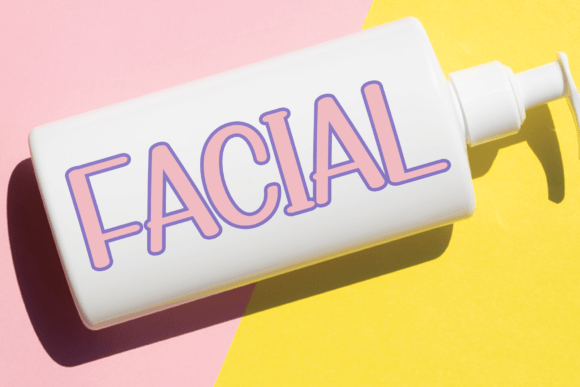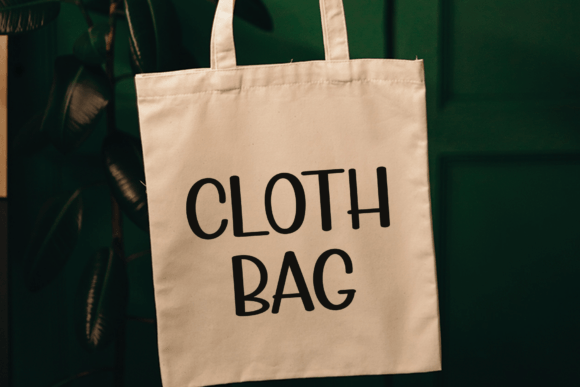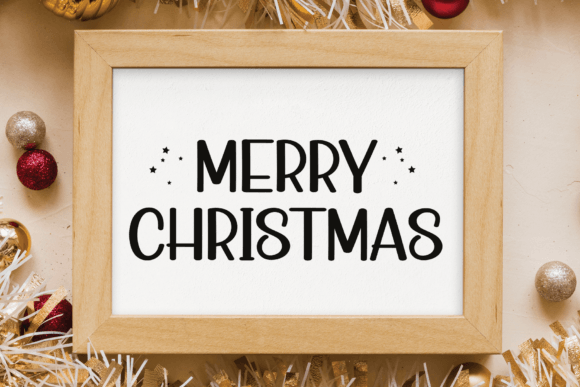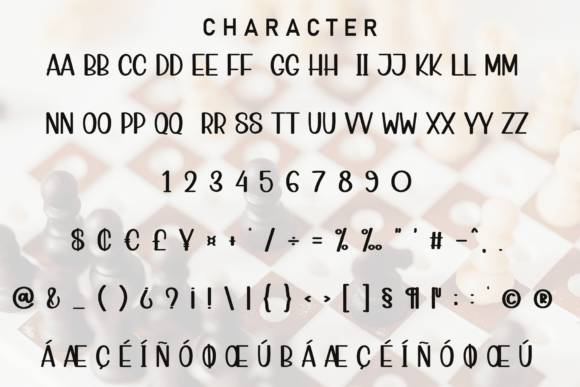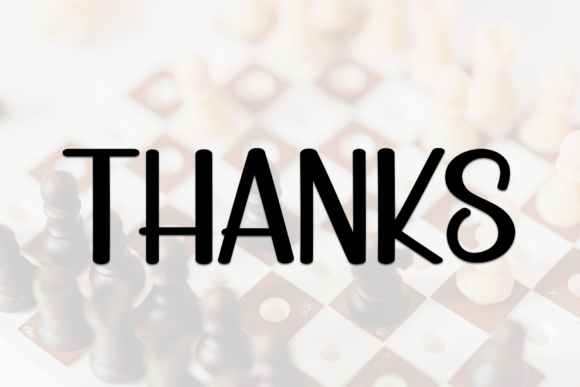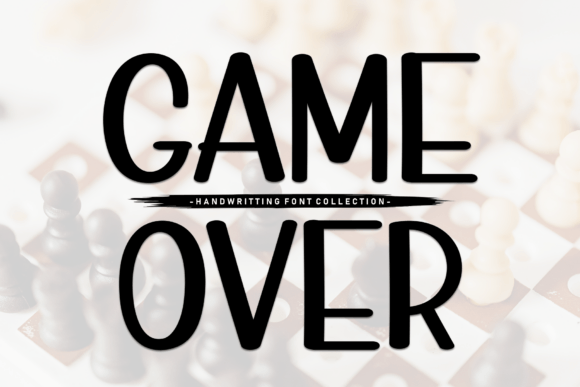
Introducing Game Over Font: Adding a Playful Touch to Your Designs
Are you tired of using the same old fonts in your designs? Look no further than the Game Over font, a playful, handwritten font that is sure to add a fun and energetic feel to your text. With its bold, marker-like strokes, Game Over is perfect for designers and crafters looking to make their text stand out.
The Characteristics of Game Over Font
Game Over is a casual, sporty font that looks like it was drawn with a bold marker. Its handwritten style gives it a friendly, approachable feel that is perfect for a variety of design projects. The font’s bold strokes and playful lettering make it ideal for headlines, titles, and other text that needs to grab attention.
What Makes Game Over Font So Versatile?
One of the things that sets Game Over apart from other fonts is its versatility. It can be used in a wide range of design projects, from sports-themed designs to playful crafts. Whether you’re creating a logo, a poster, or a social media graphic, Game Over is a great choice. Its casual, sporty vibe makes it perfect for designs that need to convey a sense of fun and energy.
Game Over font is a great choice for designers and crafters who want to add a playful touch to their work. Its bold, marker-like strokes make it perfect for a variety of projects, including:
- Signs and posters
- Craft projects, such as scrapbooking and card making
- Party decorations and invitations
How to Use Game Over Font in Your Designs
Using Game Over font in your designs is easy. Here are a few tips to get you started:
- Use it as a headline font to grab attention
- Pair it with a simpler font for body text
- Use it to create fun and playful graphics, such as badges and icons
Why Choose Game Over Font?
There are many fonts to choose from, but Game Over is a great choice for designers and crafters who want to add a playful touch to their work. Here are a few reasons why:
- It’s fun and energetic
- It’s versatile and can be used in a wide range of projects
- It’s easy to read and understand
- It’s perfect for designs that need to convey a sense of playfulness and fun
Game Over font is a great choice for designers and crafters who want to add a playful touch to their work. Its bold, marker-like strokes and casual, sporty vibe make it perfect for a wide range of design projects. Whether you’re creating a logo, a poster, or a social media graphic, Game Over is a great choice. So why not give it a try and see how it can add a fun and energetic feel to your designs?